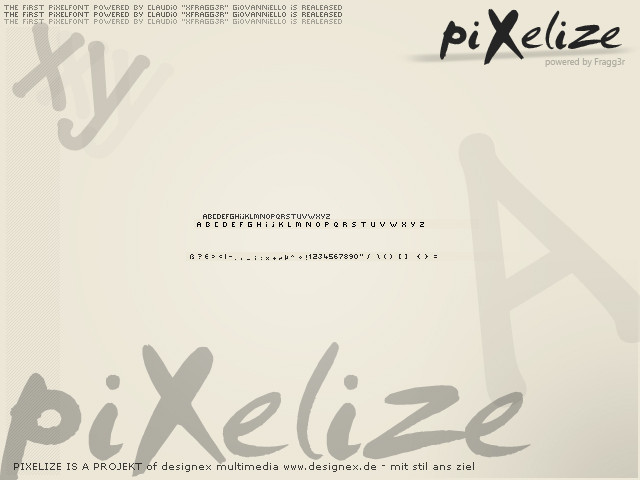
Sehr schΓΆne und coole Schrift. GefΓ€llt mir sehr gut.
Weiter so
just what i was looking for. I like it!
looks nice man,
never been a fan of pixelfonts though.
nice font
Great font! ;A; It is very professional-looking; not a single letter is messed up! ^^ I'll be favoriting this, and perhaps I'll even use it in the future. ;D
sieht aus wie jeder andere bit font nichts besonderes. Finde ihn schlecht lesbar man muss sich sehr anstrengen, weil er ziehmlich klein ist.
das nat ne pixelfont so ansich^^